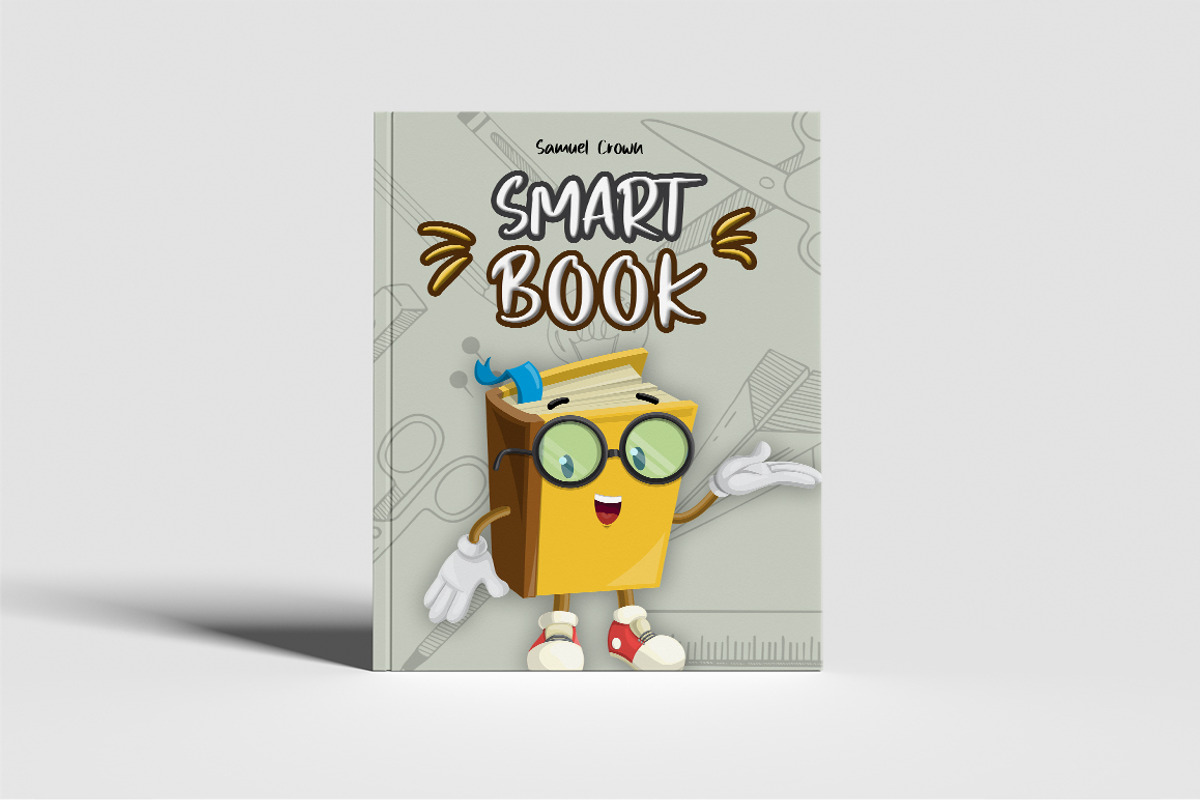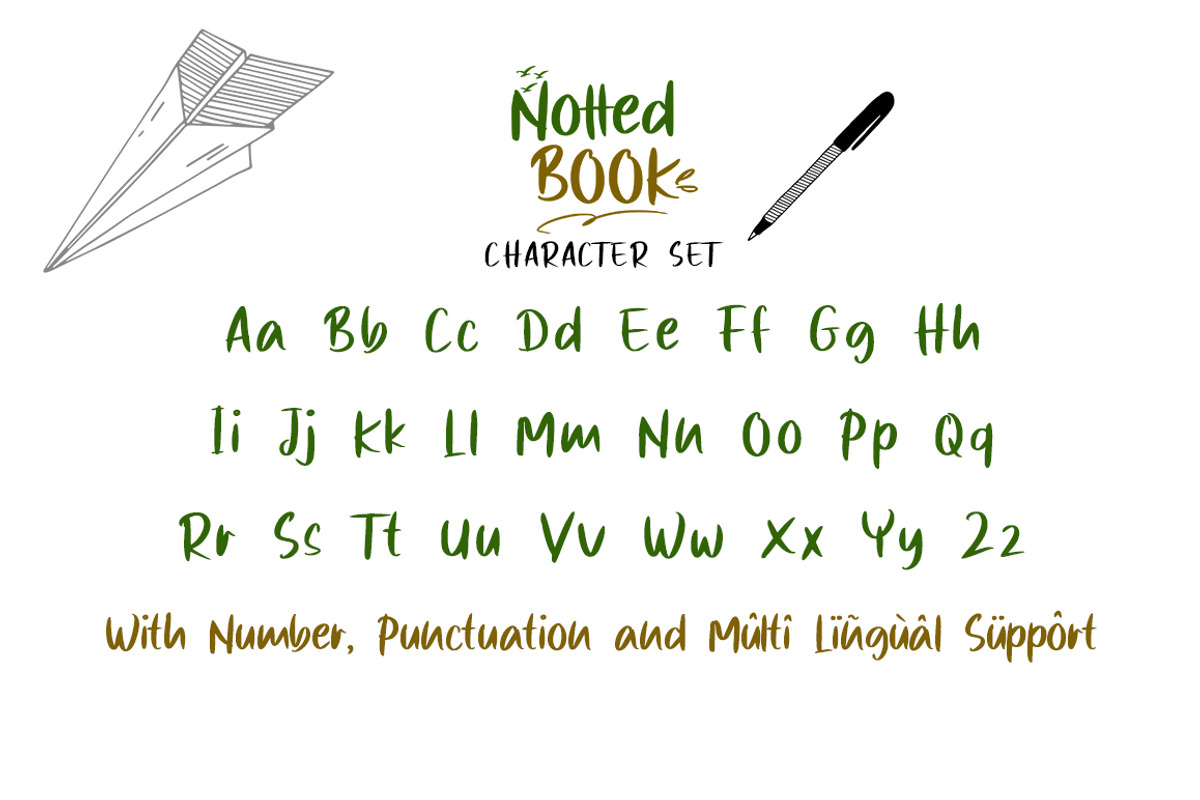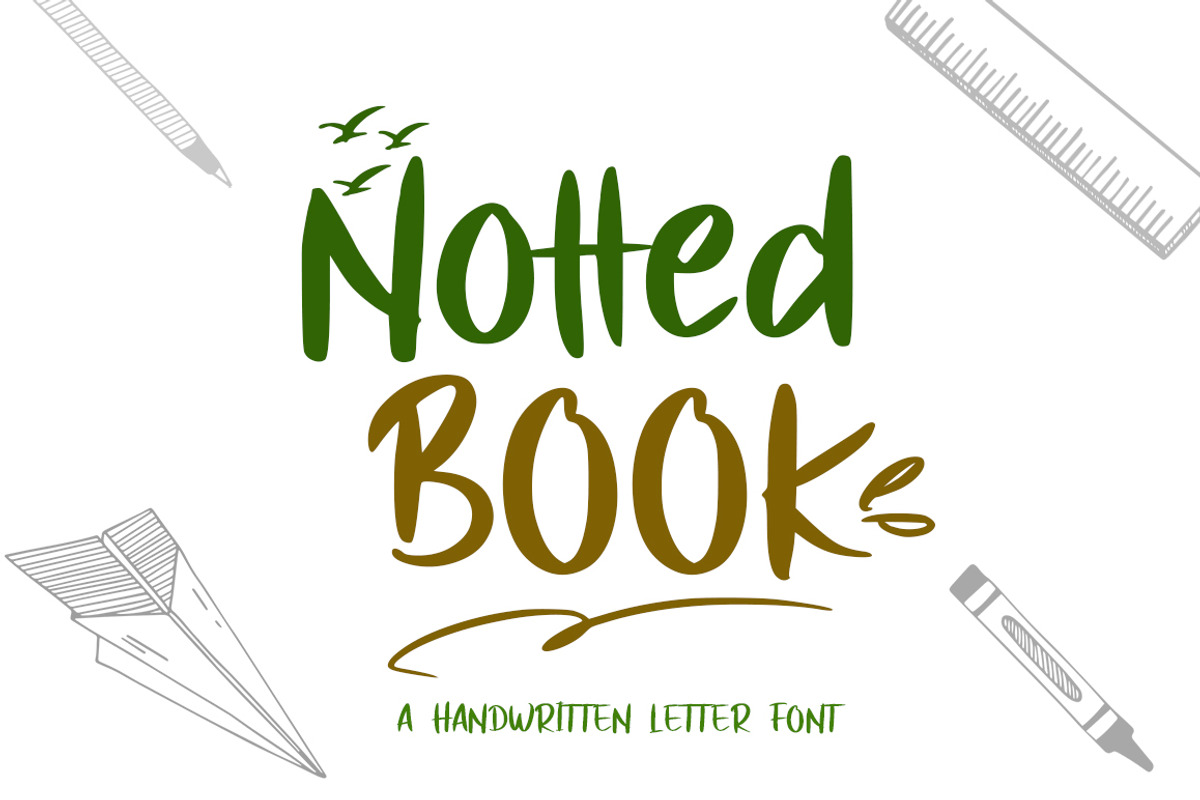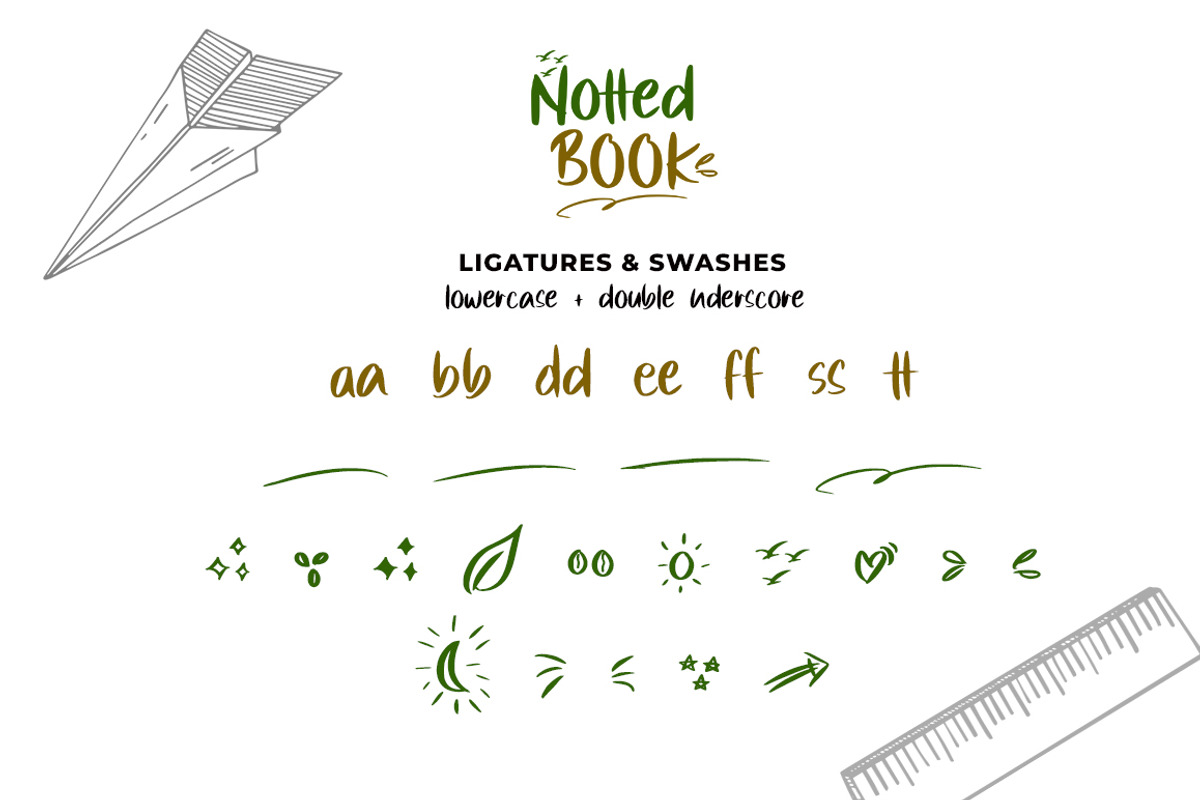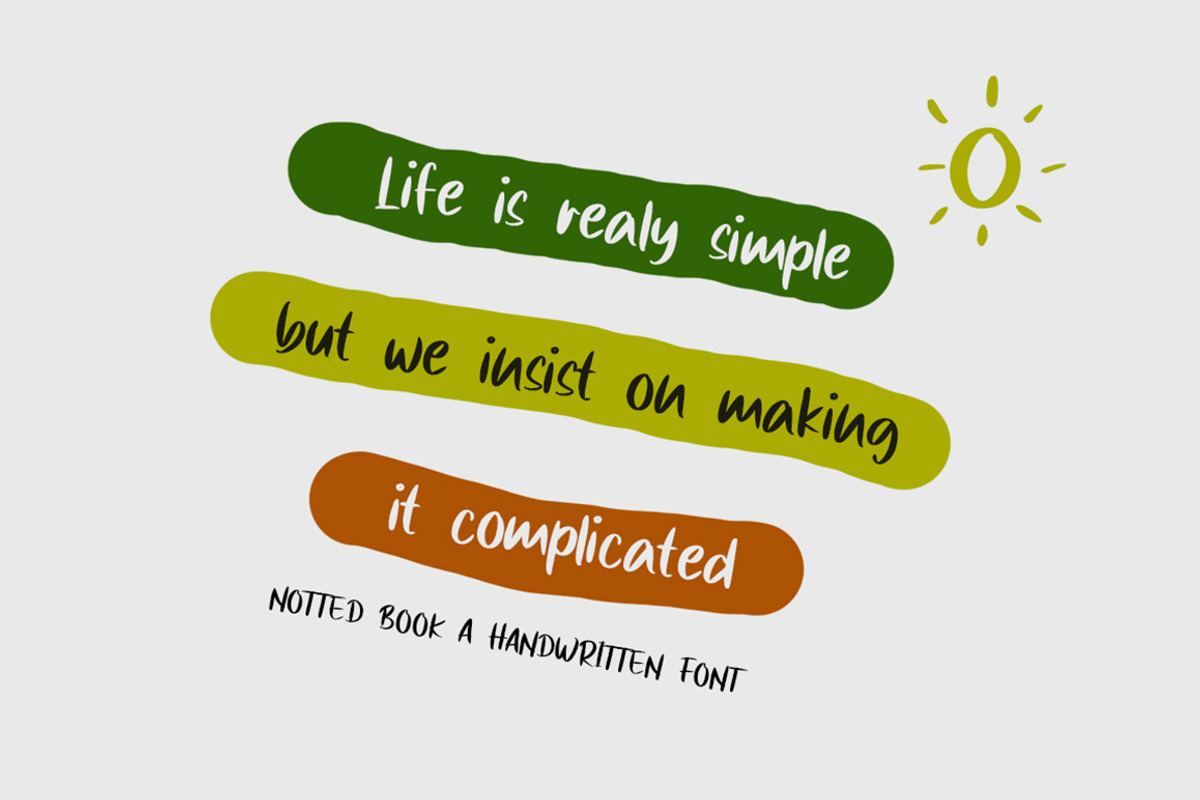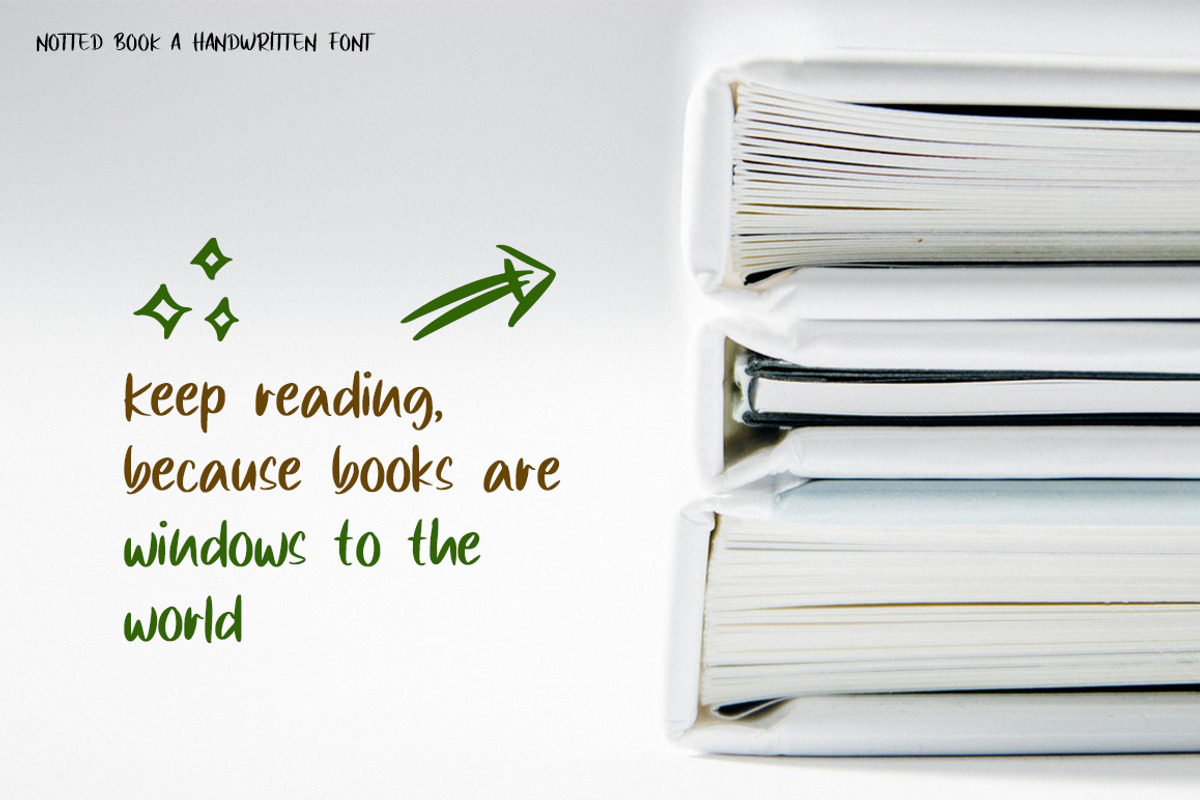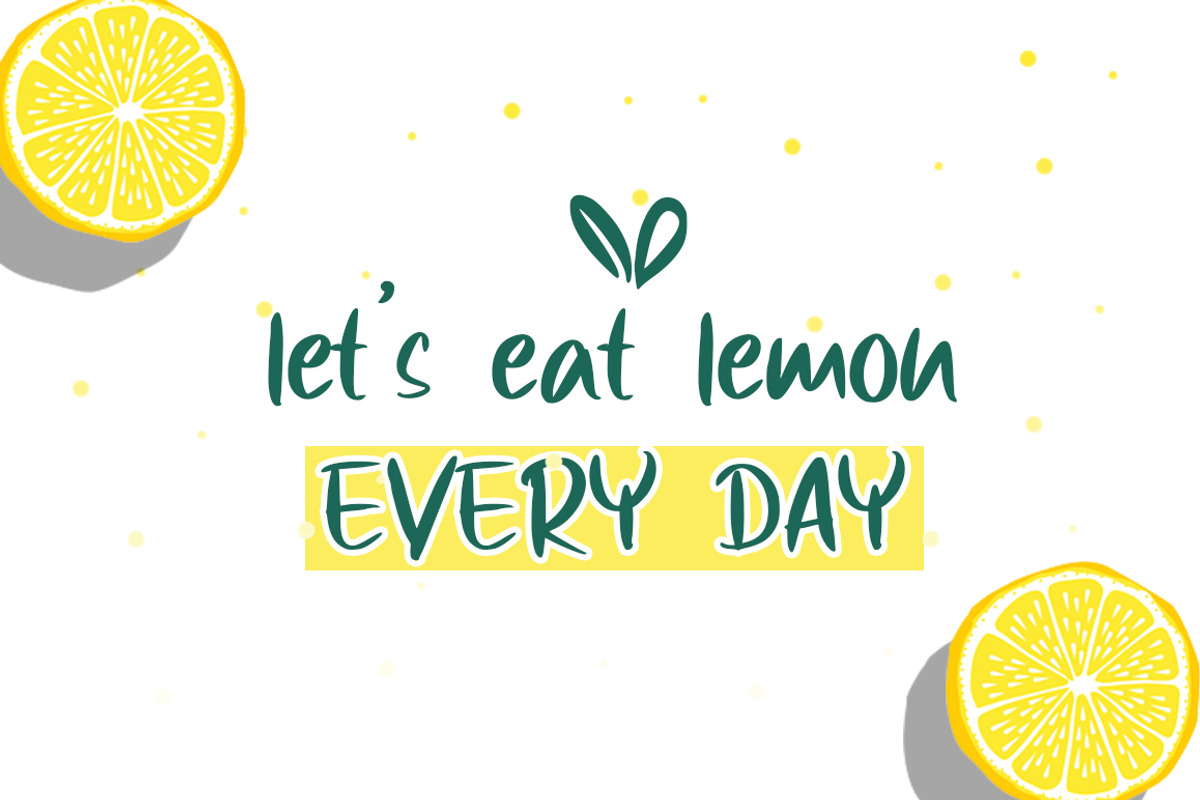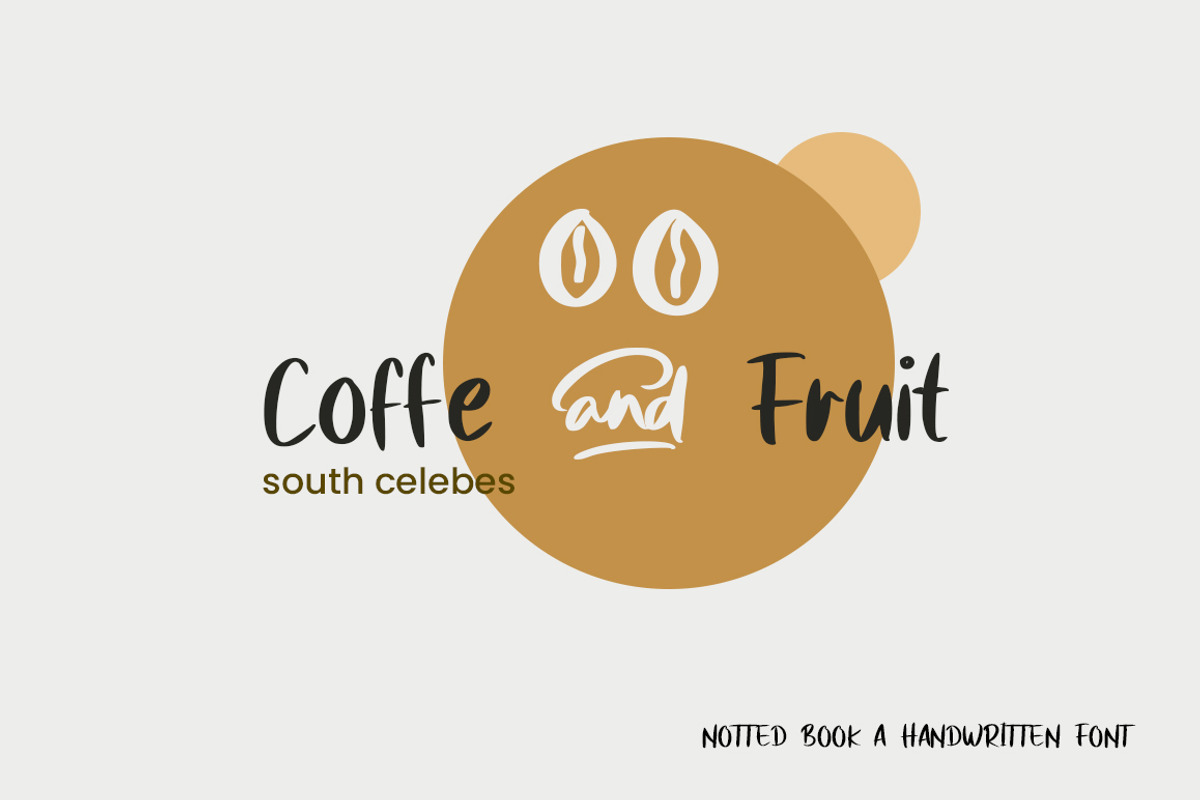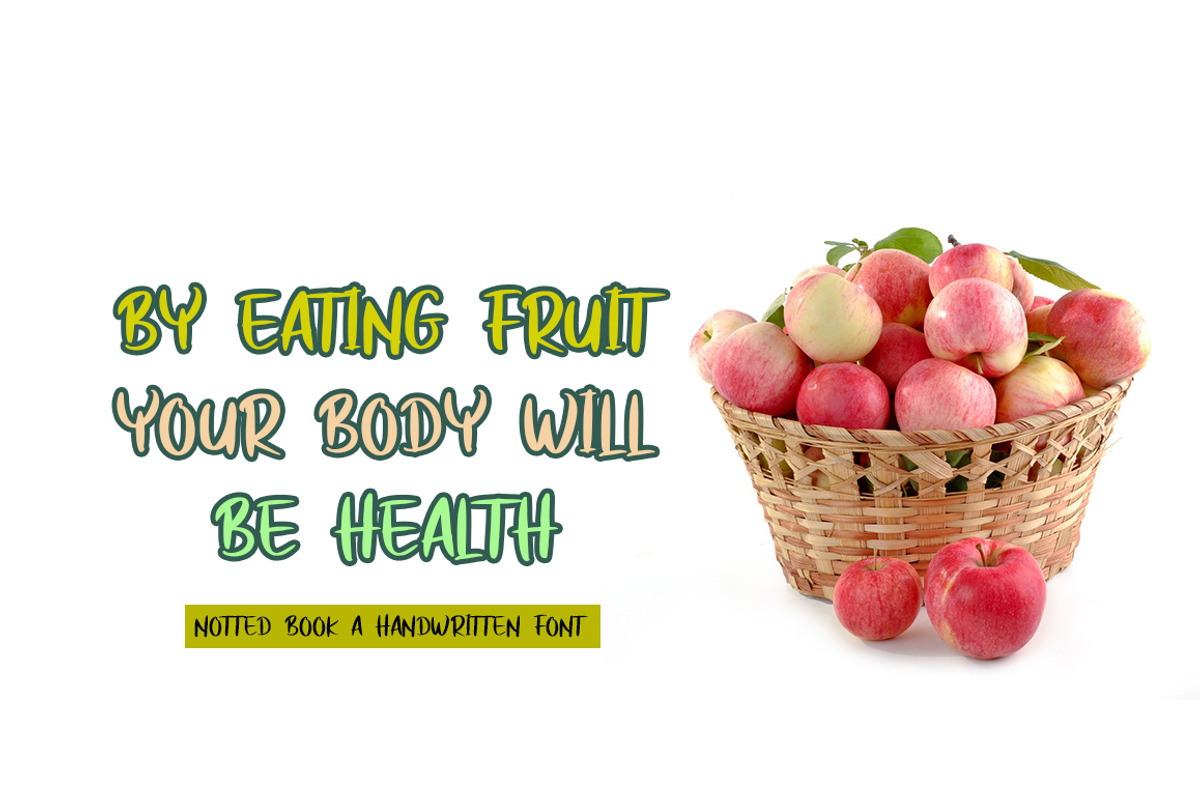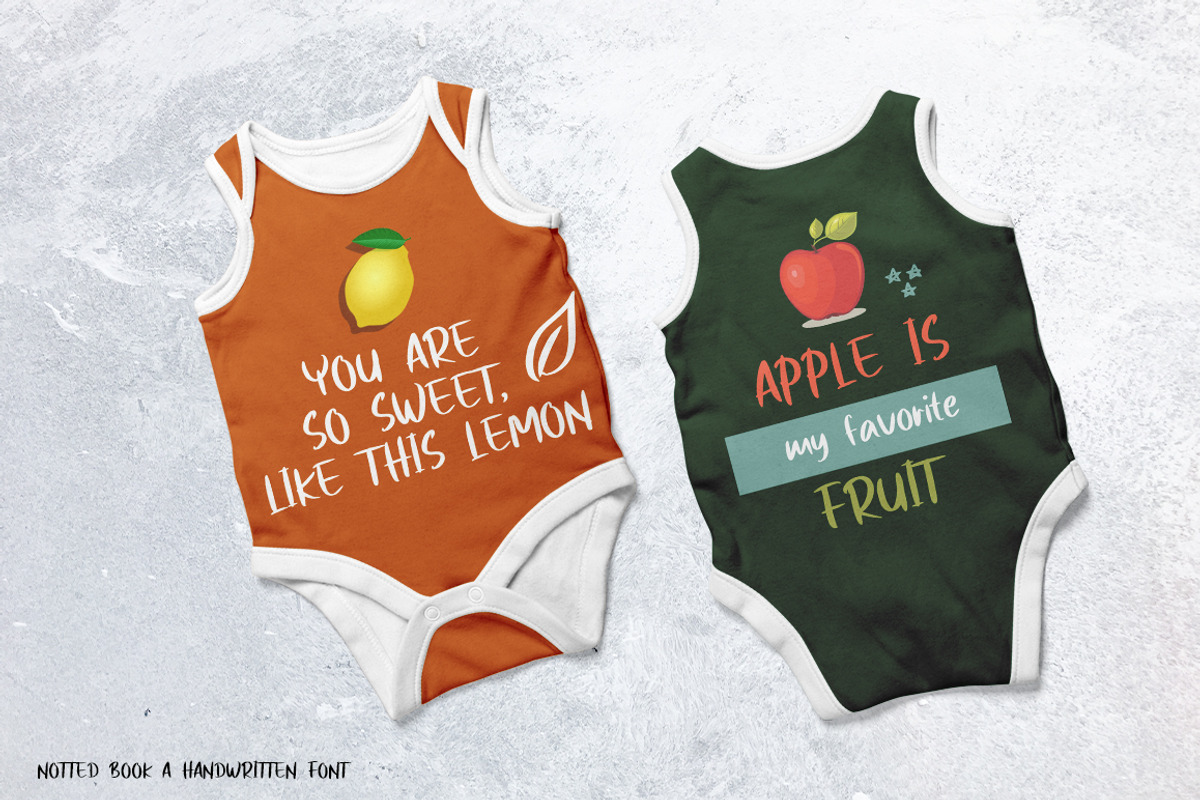
Notted Book
Notted Book is handwritten font a cheerful, cute and fun. This font is drawn with care and love which makes it a great choice for your work.
Notted Book will work perfectly on apps, book covers, toys, packaging, movies, children's theme parks, pajama party posters, toy packaging, inspirational quotes and more.